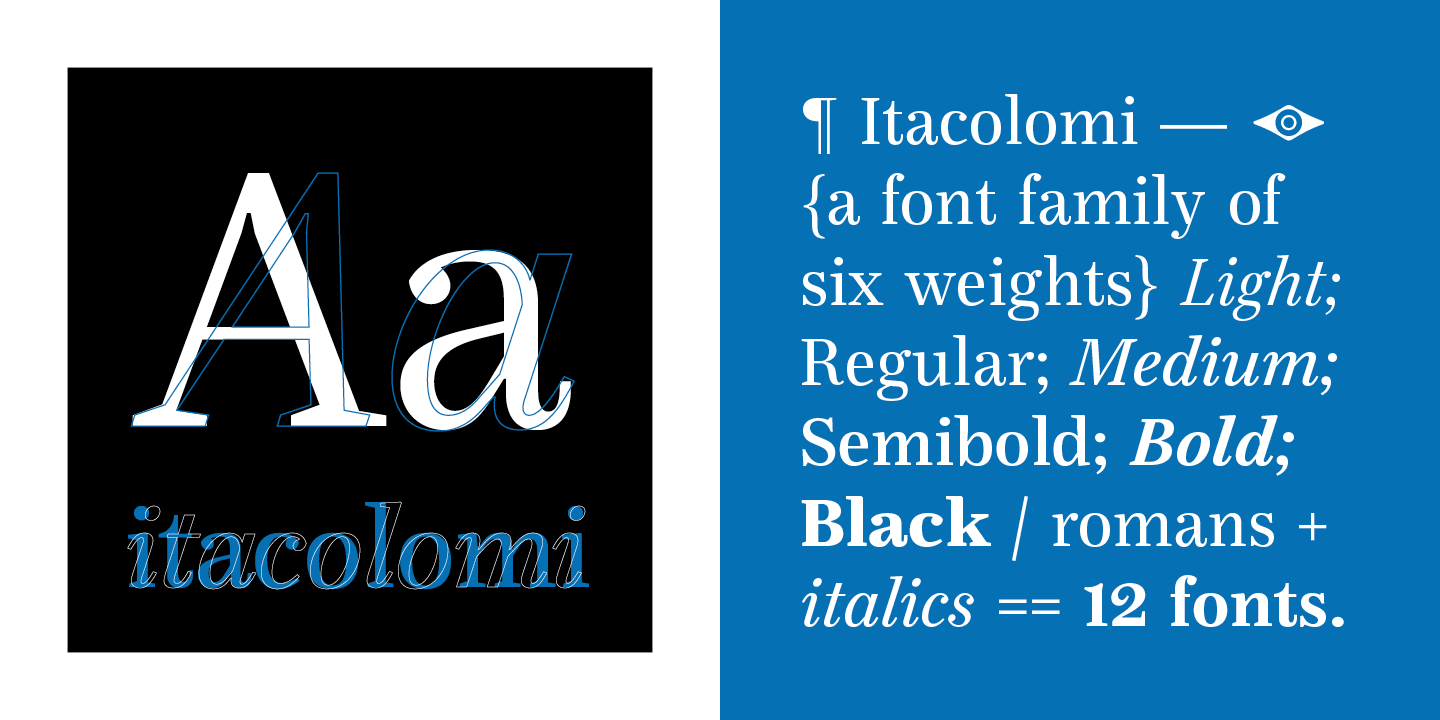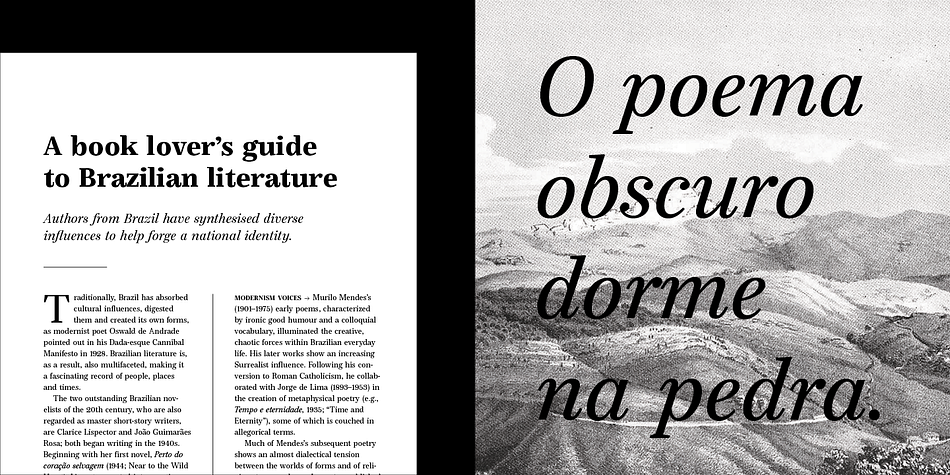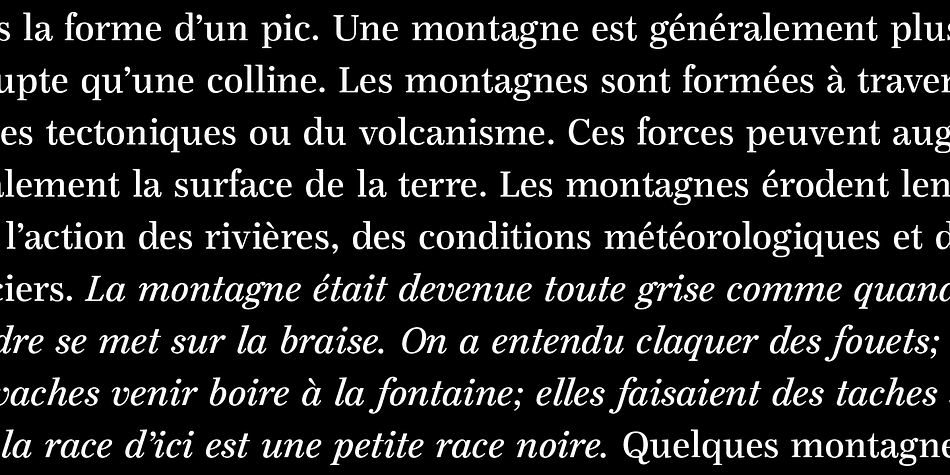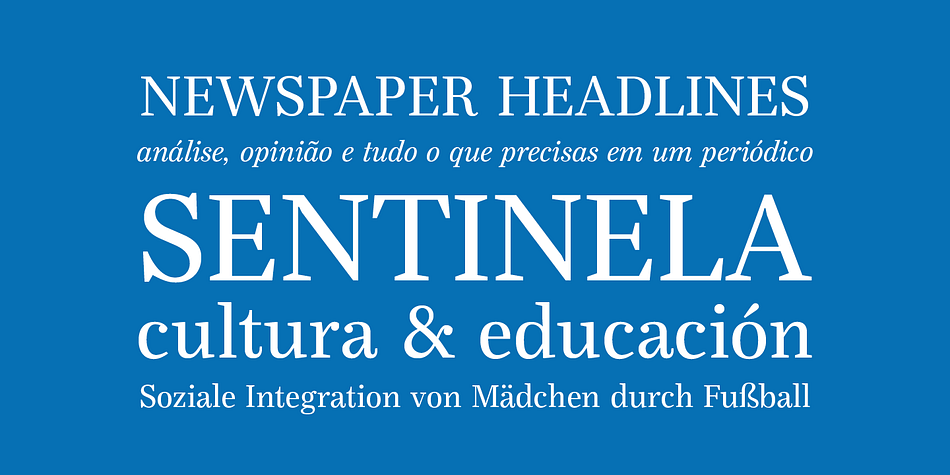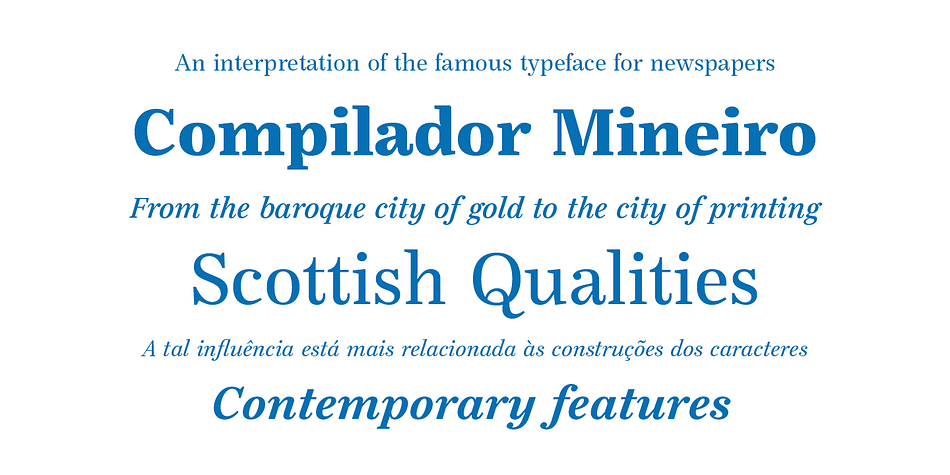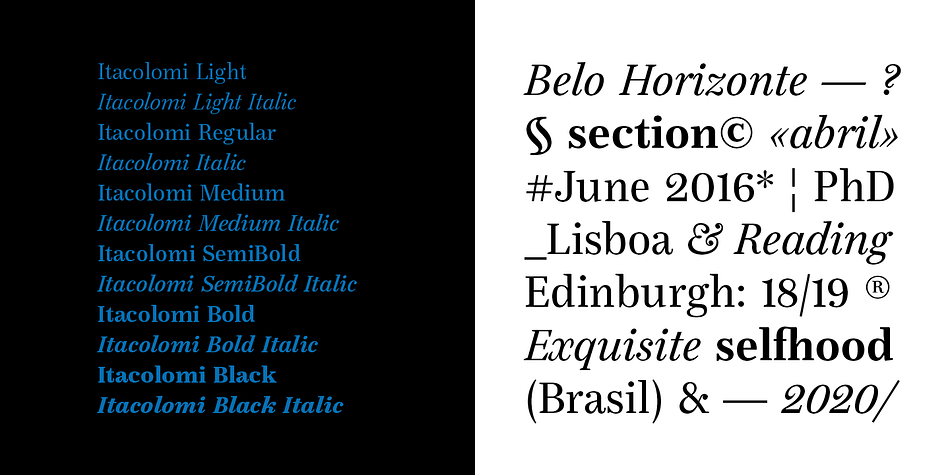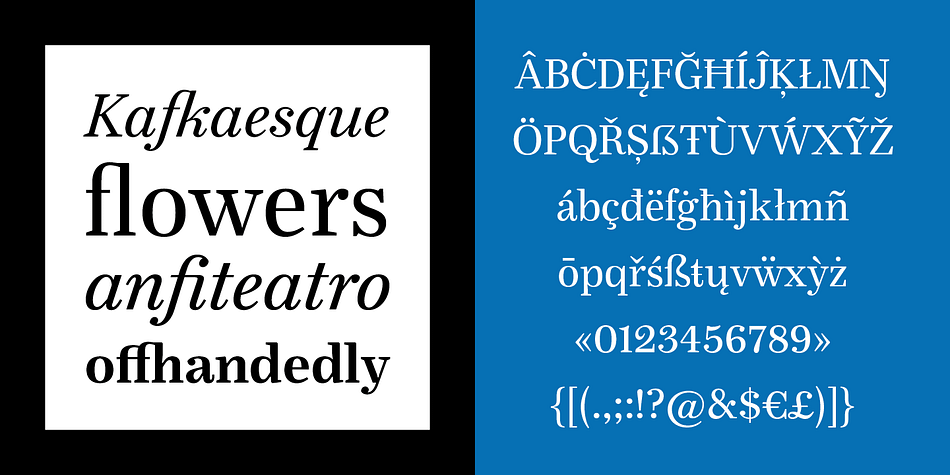
Designed by Emerson Eller, Itacolomi is a serif font family. This typeface has twelve styles and was published by Eller Type.
Itacolomi is a font family conceived for editorial purposes. Based on historical models, it is well placed in the present time, turning classic proportions into contemporary letter shapes. It is robust and clean in small sizes, keeping the consistency in both print and digital environment.
Itacolomi is a result of an extensive investigation into Scottish style types produced in Brazil around 1820. A possible connection between Brazil and Scotland. In short, it preserves the qualities of the famous 19th-century Scotch Roman types while adding a personal approach with unique features from the early Brazilian models.
It has six weights, romans plus respective italics, which makes twelve fonts with an extensive character set that supports over two hundred languages and includes small caps, ligatures, old-style and tabular numerals.